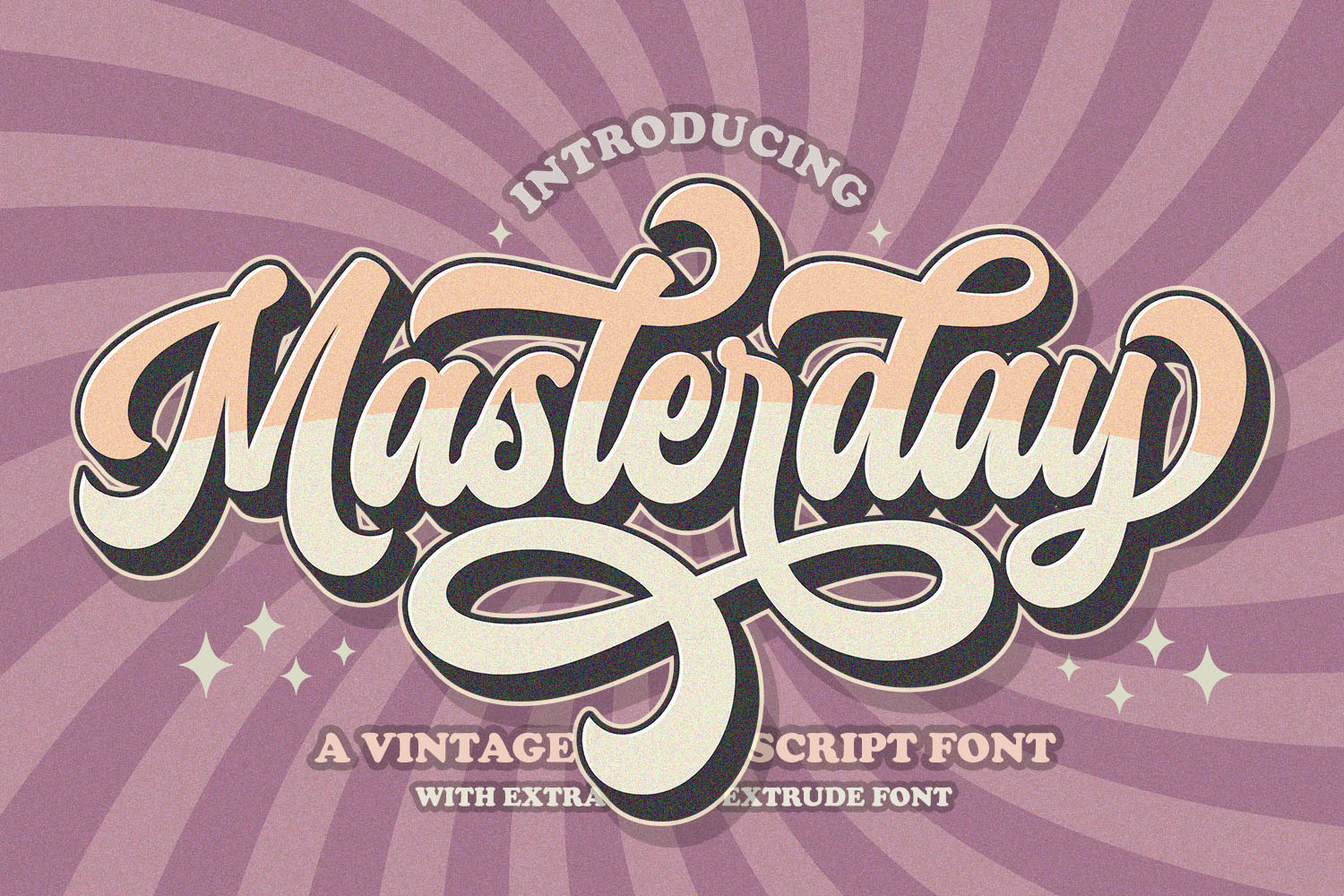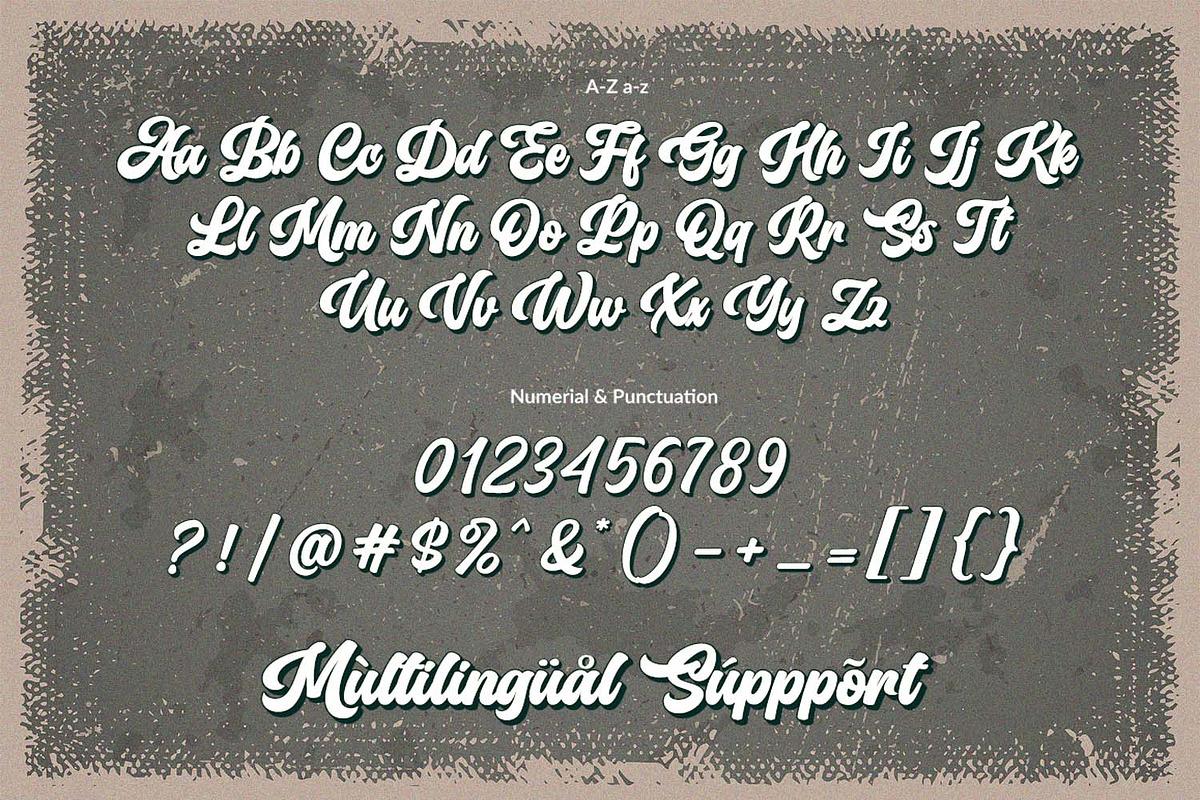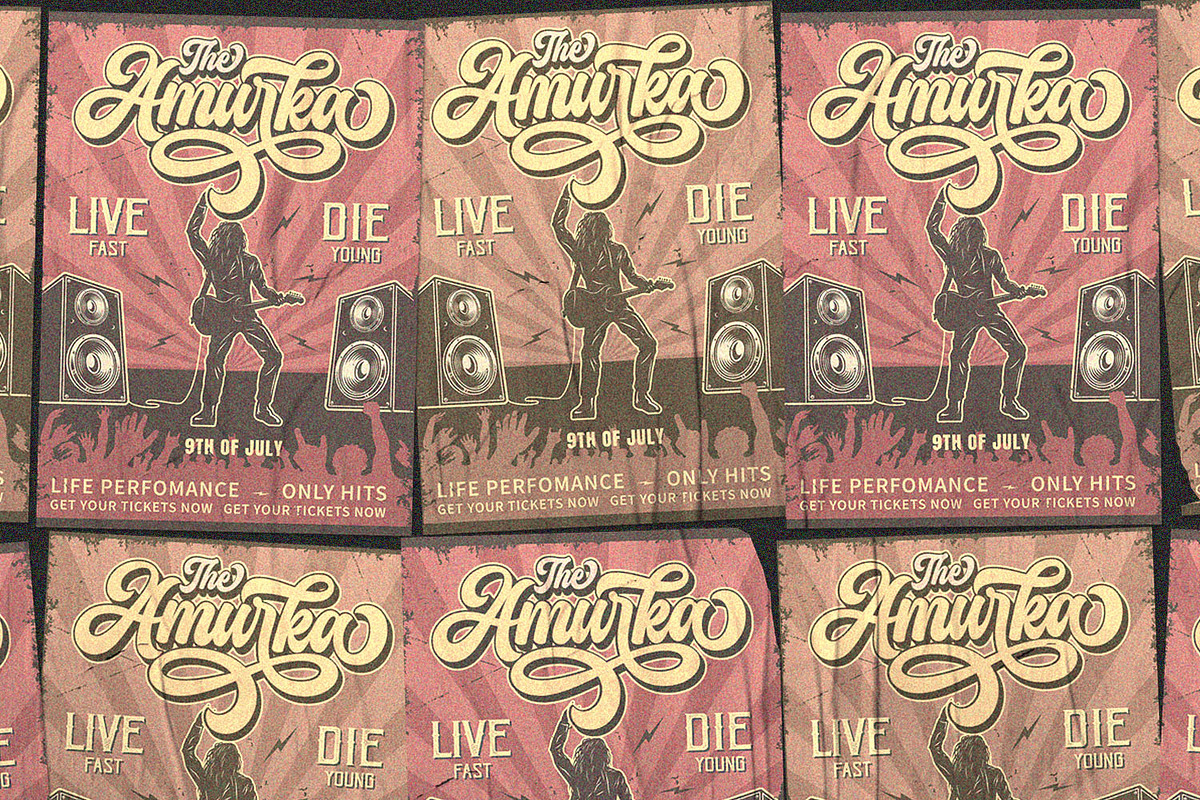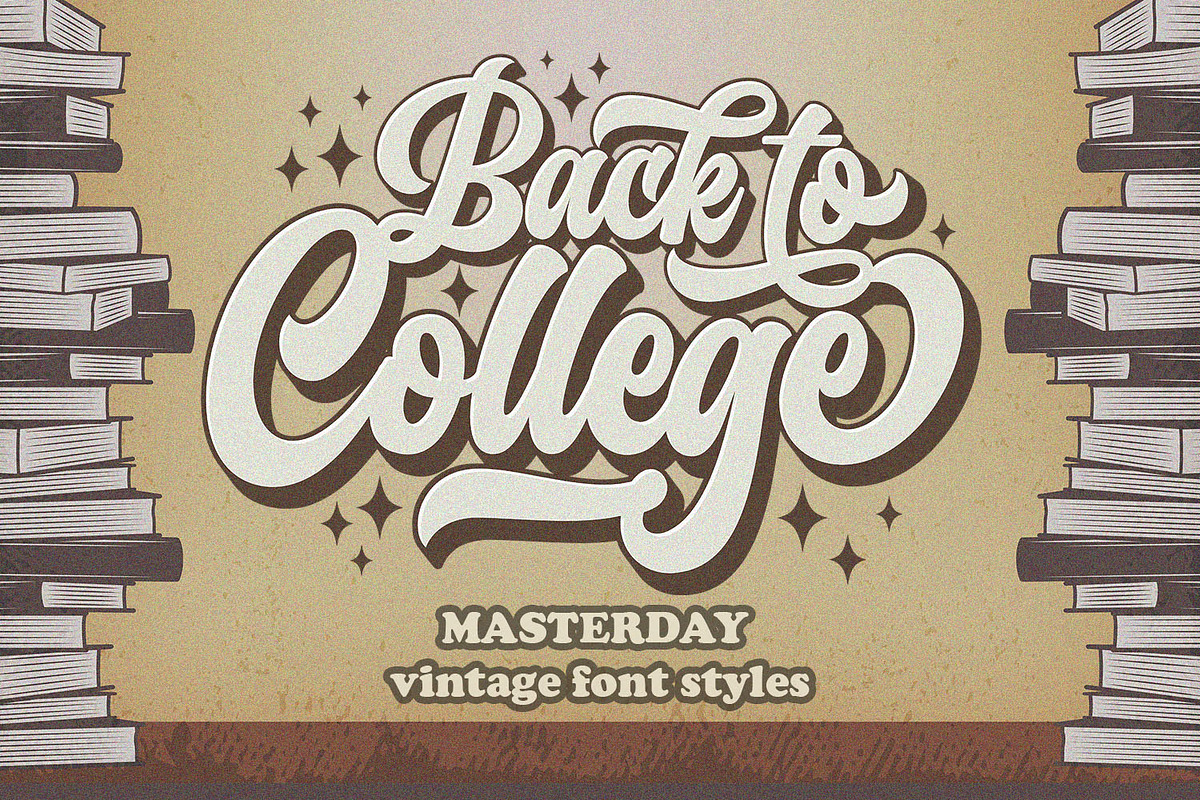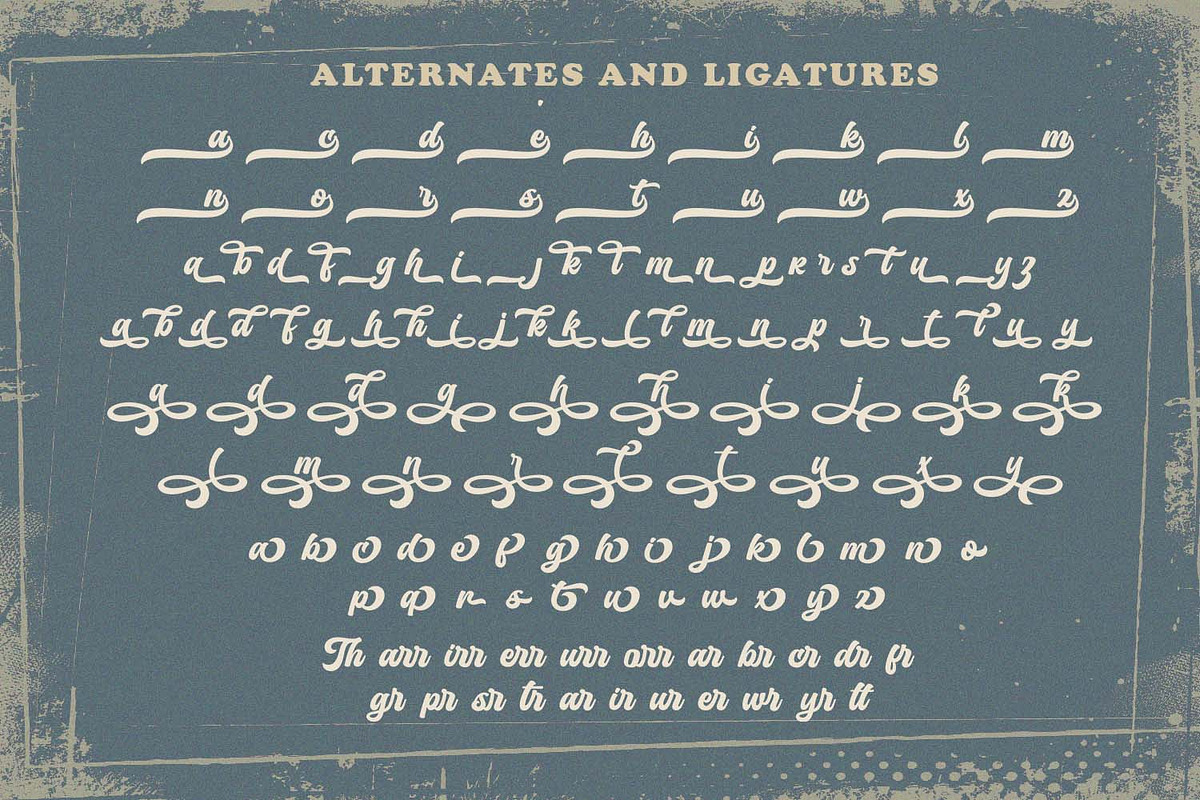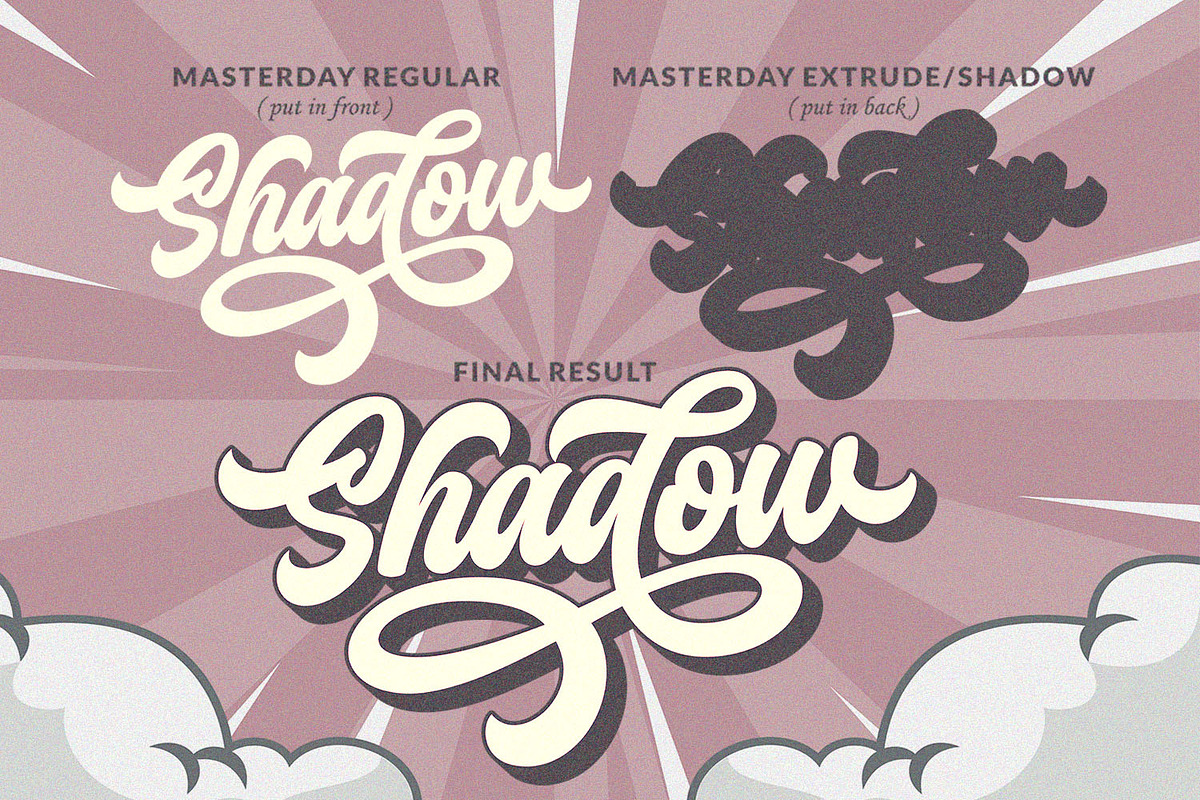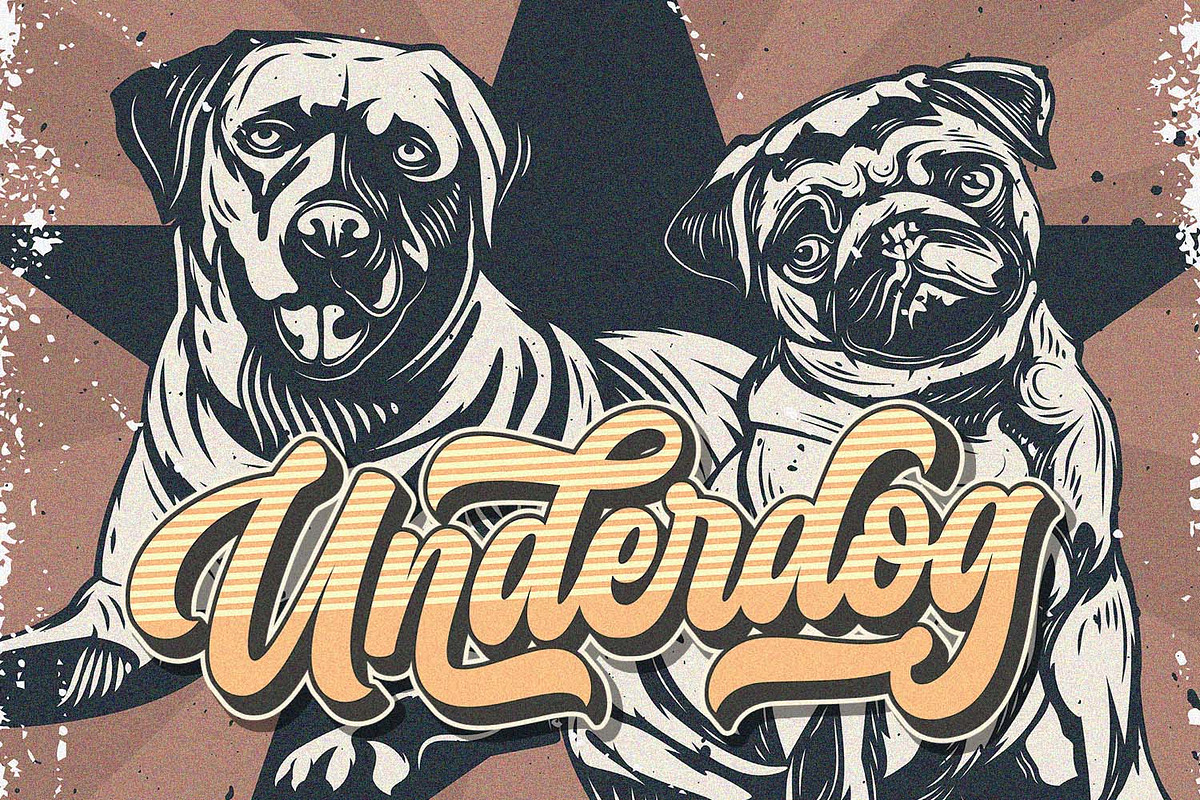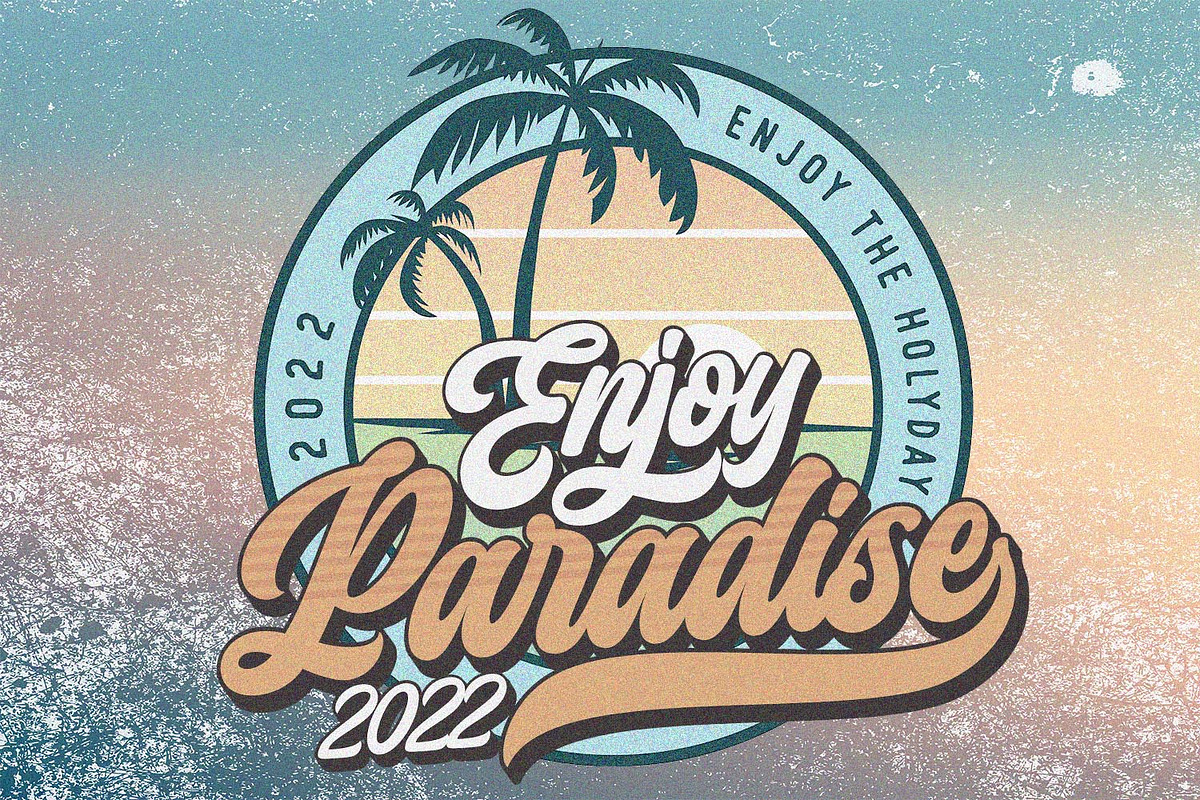
Retro Masterday - Vintage Font
Masterday Font is a retro bold script style font, come with clean and rough font version. Inspired from retro typography and lettering in the 70's and 80's combine with bold typography style. This font perfect for vintage and retro design, badge, logos,t-shirt, poster, branding, packaging, signage, book coverand so much more!
it has an extensive lingual support, covering European and Asian Latin scripts. The font contains all characters you'll ever need, including all punctuation and numbers.